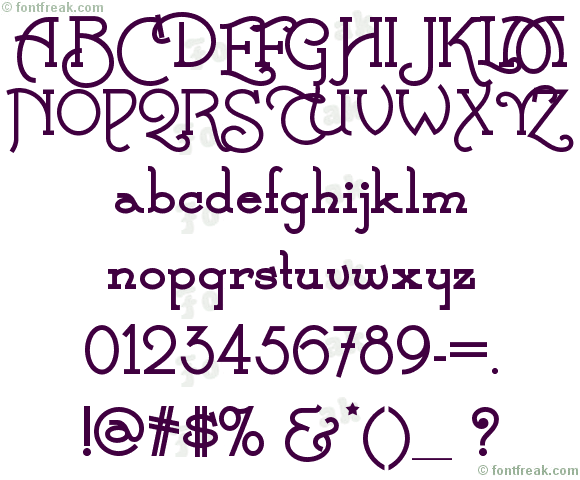
Calamity Jane NF Bold
Calamity Jane NF
Calamity Jane NF Bold, designed by Nick Curtis, is a striking display font that falls into the decorative category. This font features an eye-catching design with a unique blend of bold strokes and whimsical curves, making it an excellent choice for projects that require a touch of personality and flair. The stroke weight is substantial, providing a commanding presence, while the moderate contrast between thick and thin lines adds visual interest. The spacing is well-balanced, ensuring readability while still retaining its decorative charm.
This font is particularly well-suited for a variety of creative applications. Its playful yet bold aesthetic makes it a standout choice for wedding invitations, where a hint of elegance meets a fun twist. It is also ideal for movie posters, allowing titles to leap off the page with a sense of excitement and energy. Restaurant menus can benefit from its unique character, helping to convey a distinct atmosphere that aligns with the dining experience. Additionally, content creators looking to spice up social media graphics or promotional materials will find Calamity Jane NF Bold an attractive option that captures attention.
Targeting graphic designers, small business owners, and content creators, this font provides an avenue for expressing creativity in various contexts. Whether you're crafting a vibrant visual identity for a brand or simply looking to enhance your personal projects, this font delivers versatility and charm.
What sets Calamity Jane NF Bold apart is its ability to blend boldness with whimsy, making it a memorable choice for anyone seeking to infuse their designs with personality. With a Calamity Jane NF Bold font free download available, it’s easy to incorporate this unique typeface into your next project and make a lasting impression.